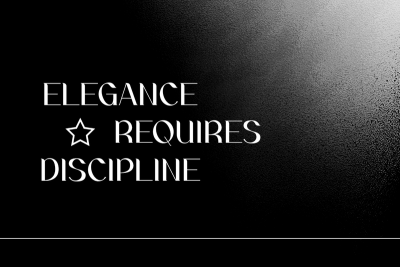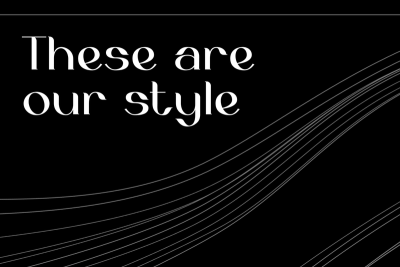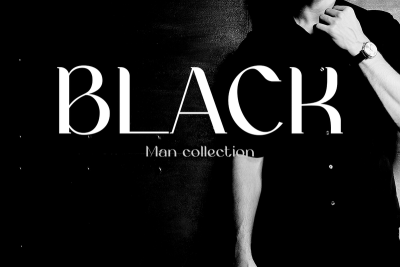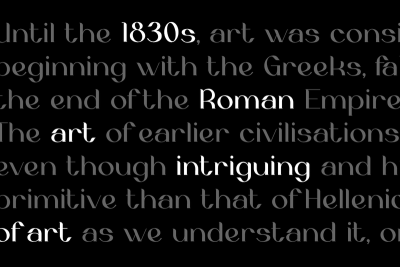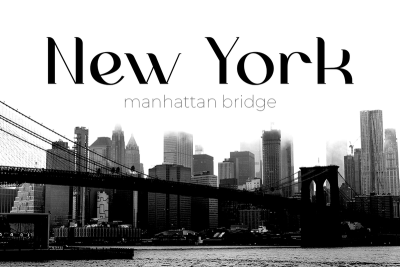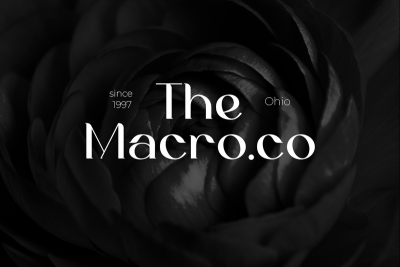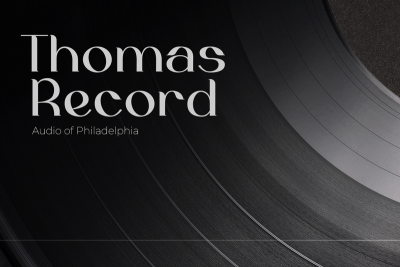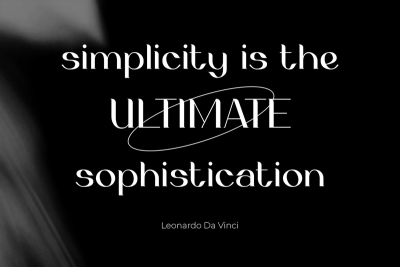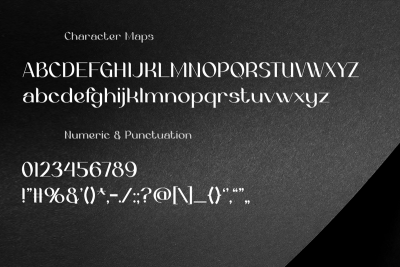
Instagram Font PLATONIA combines elegance and modernity, making it the perfect minimalist display typeface. Its clean, geometric shapes and bold, refined curves create a contemporary aesthetic that elevates your designs. The font’s unique letterforms feature sharp edges and smooth curves, which provide a striking visual appeal and timeless sophistication.
You can use PLATONIA to create designs that demand attention, such as logos, editorial headlines, posters, and branding materials. Its high legibility and striking appearance give you both functionality and artistic freedom. The sharp edges convey precision and professionalism, while the subtle curves add a sense of softness and approachability.
Designed for todayโs creative needs, PLATONIA excels on platforms like Instagram and other social media channels where aesthetics and visual impact are crucial. Whether you design a high-fashion lookbook, develop a luxurious brand identity, or craft bold social media graphics, this versatile typeface enhances and elevates your creative vision. Its modern style pairs well with other sans-serif or serif fonts, enabling you to create balanced and captivating typography compositions.
Instagram Font PLATONIA Who is it For?
Creative professionals and brands looking for bold, sophisticated designs will love PLATONIA. Graphic designers can add this font to their toolkit to craft unique projects that exude elegance and creativity. Brand strategists and marketers can use it to create premium visuals that leave a lasting impression on audiences.
Lifestyle and fashion brands can rely on PLATONIA to communicate luxury and style. Influencers and content creators on Instagram, TikTok, and Pinterest can grab their audienceโs attention with eye-catching visuals using this typeface. Whether you design social media templates or personal branding assets, PLATONIA helps you stand out in a crowded digital space.
Industries like beauty, wellness, and high-end retail can use this font to engage their customers through visually appealing designs. Event planners and wedding stationery designers can also bring elegance to their invitations, menus, and dรฉcor signage by incorporating PLATONIA.
When you create sleek logos, design for Instagram, or work on editorial spreads, Instagram Font PLATONIA helps your projects embody modern sophistication with a minimalistic edge.